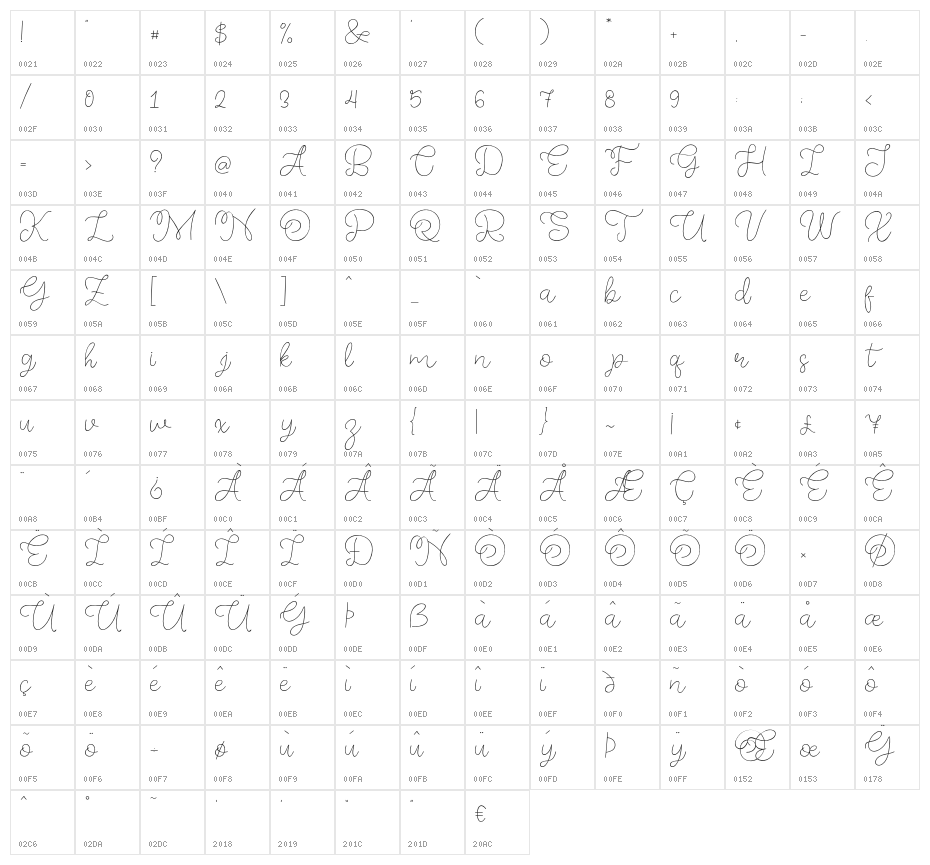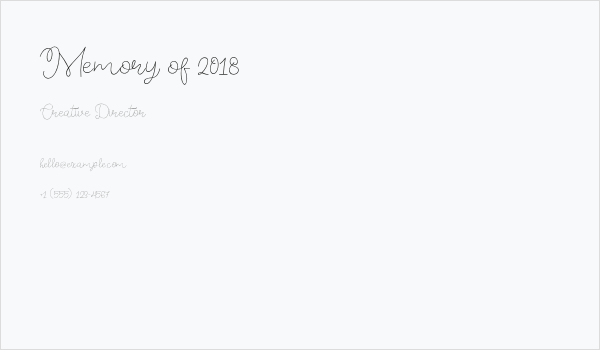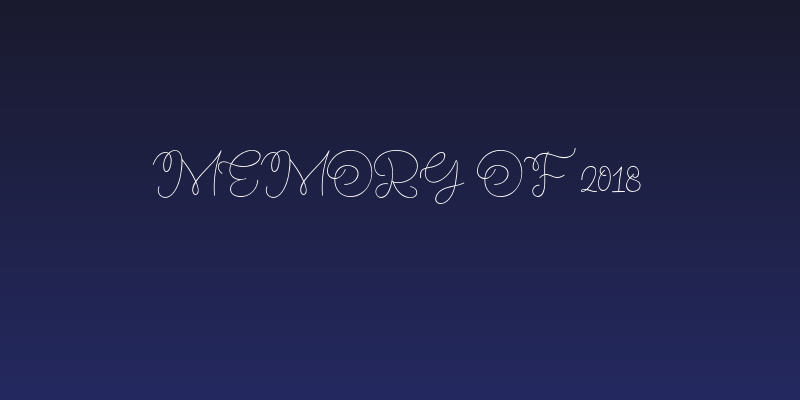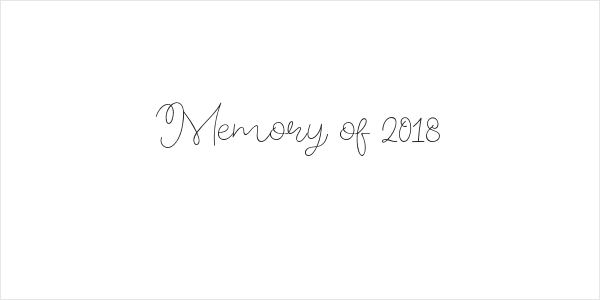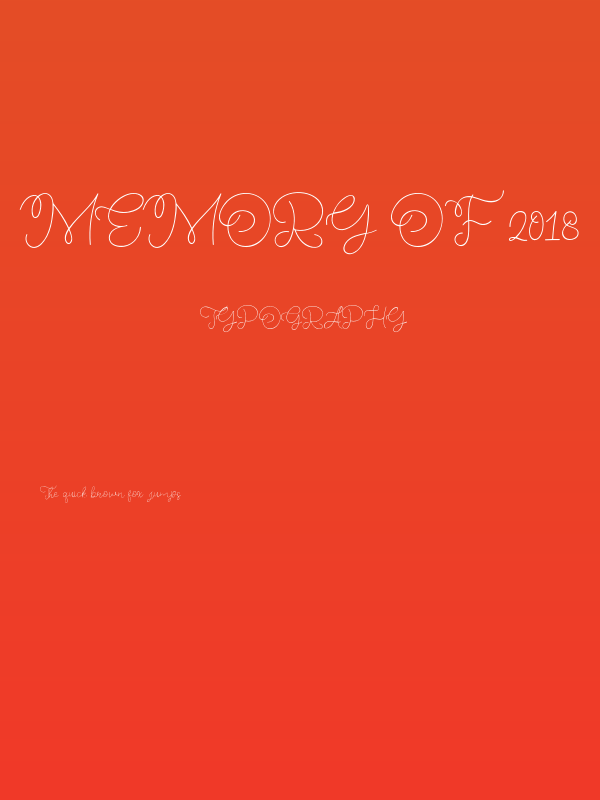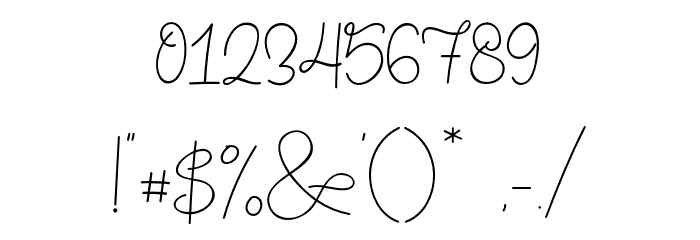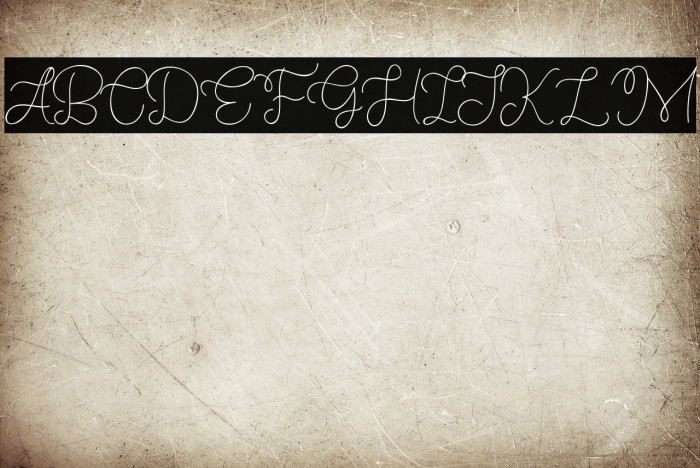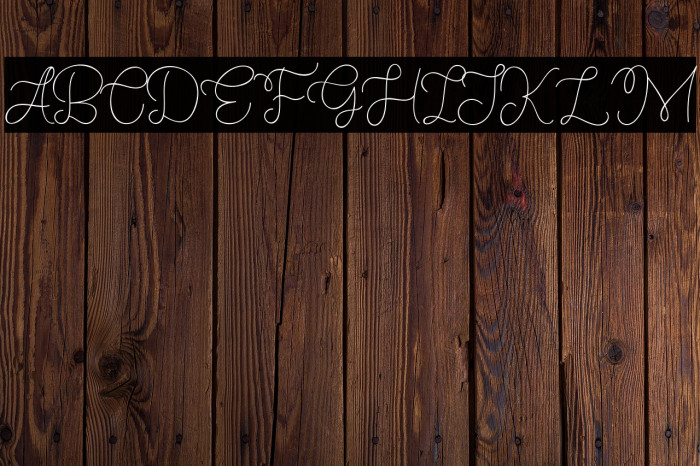
Memory of 2018 Font
✎ Script
Memory of 2018 Description
This font features a delicate and flowing script style, characterized by its elegant, cursive letterforms. The strokes are thin and consistent, giving it a refined and graceful appearance. Each character is connected with smooth, looping lines, creating a harmonious and fluid look. The uppercase letters are slightly more ornate, with subtle flourishes that enhance their decorative appeal. The lowercase letters maintain a consistent height, contributing to the font's readability despite its intricate design. The numerals and special characters are crafted with the same attention to detail, ensuring a cohesive overall style. This font exudes a sense of sophistication and charm, making it suitable for projects that require a touch of elegance.
| Overall Style | Elegant, Decorative |
| Use Case | Logos, Invitations, Decorative text |
| Proposed Projects | Ideal for wedding invitations, greeting cards, elegant branding, and personal stationery. |